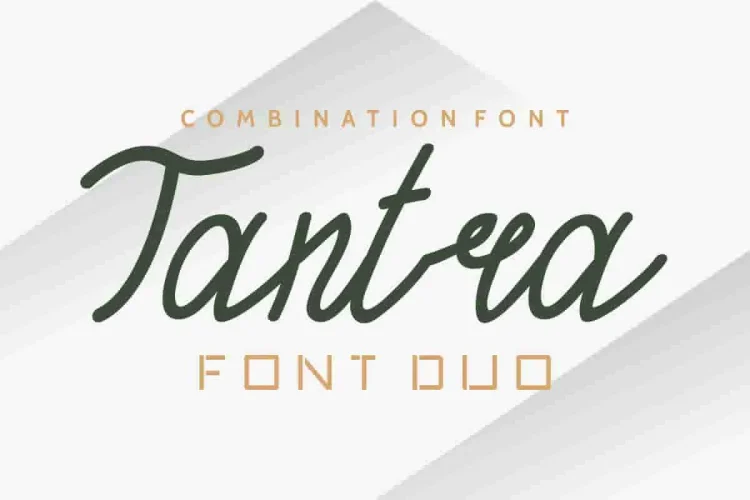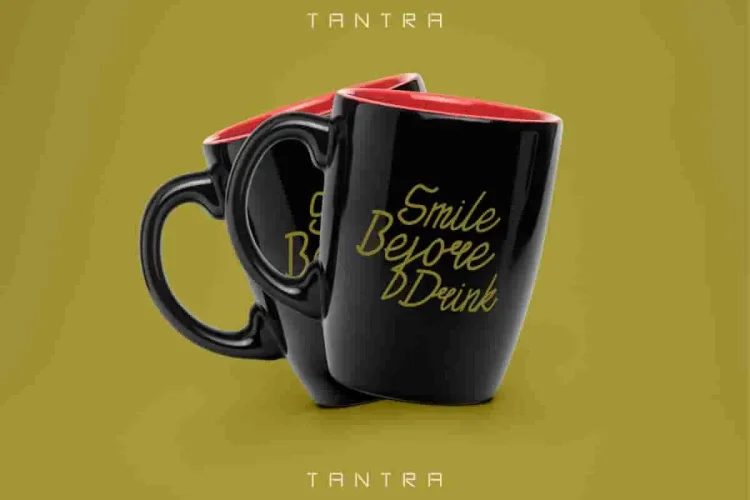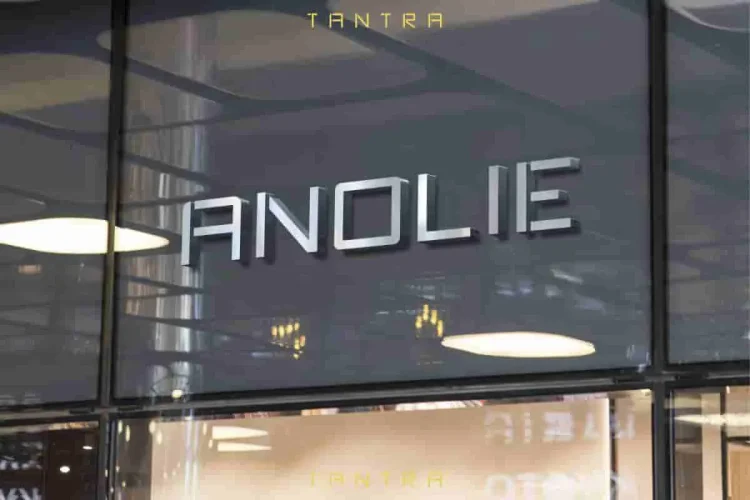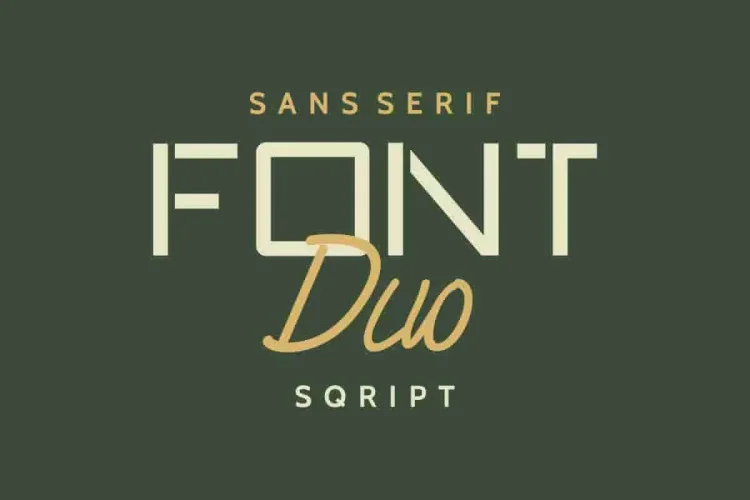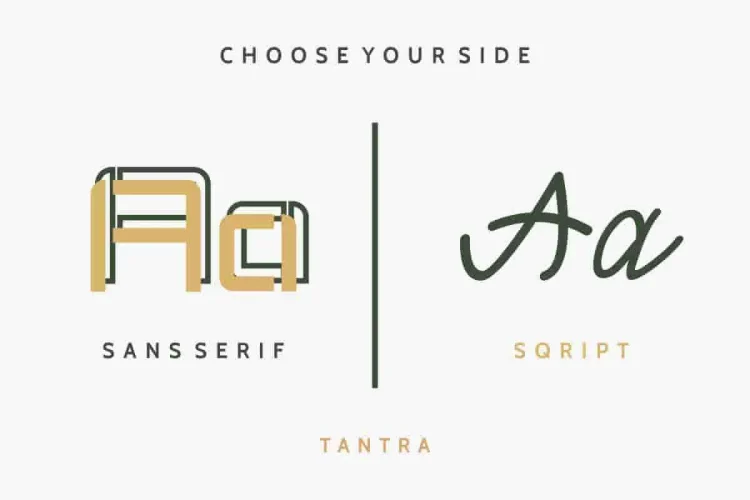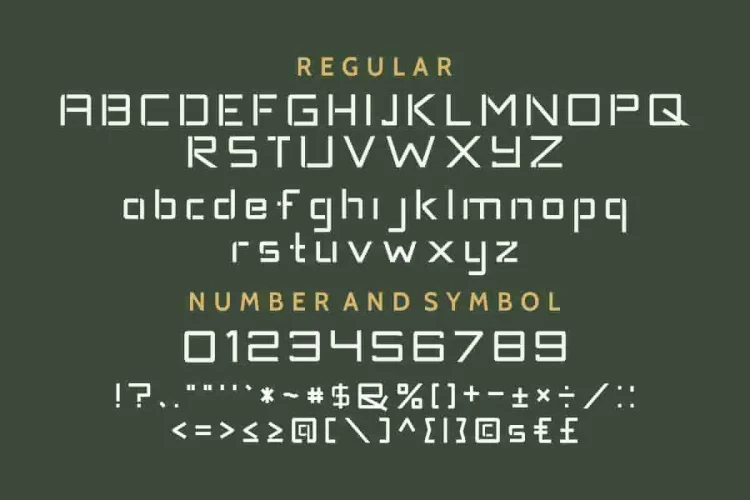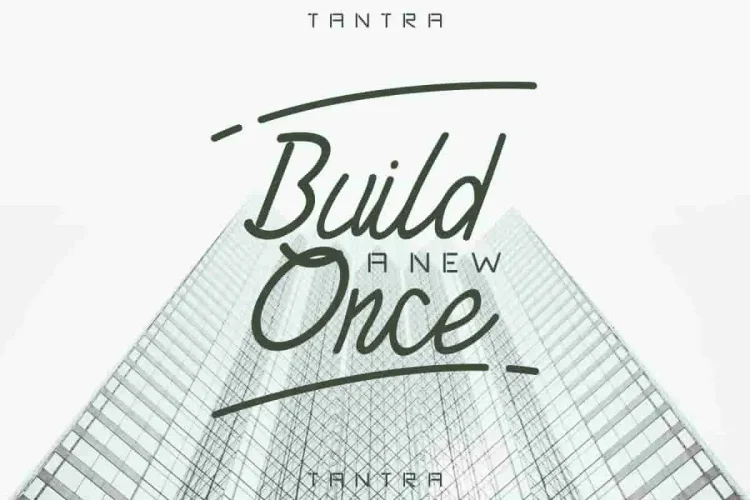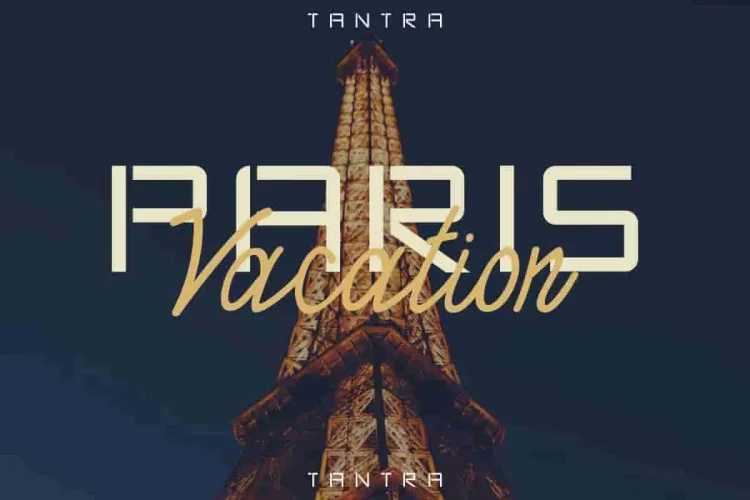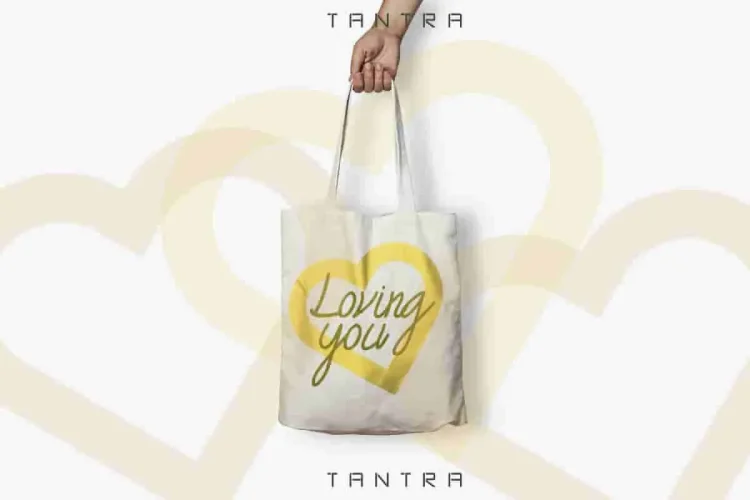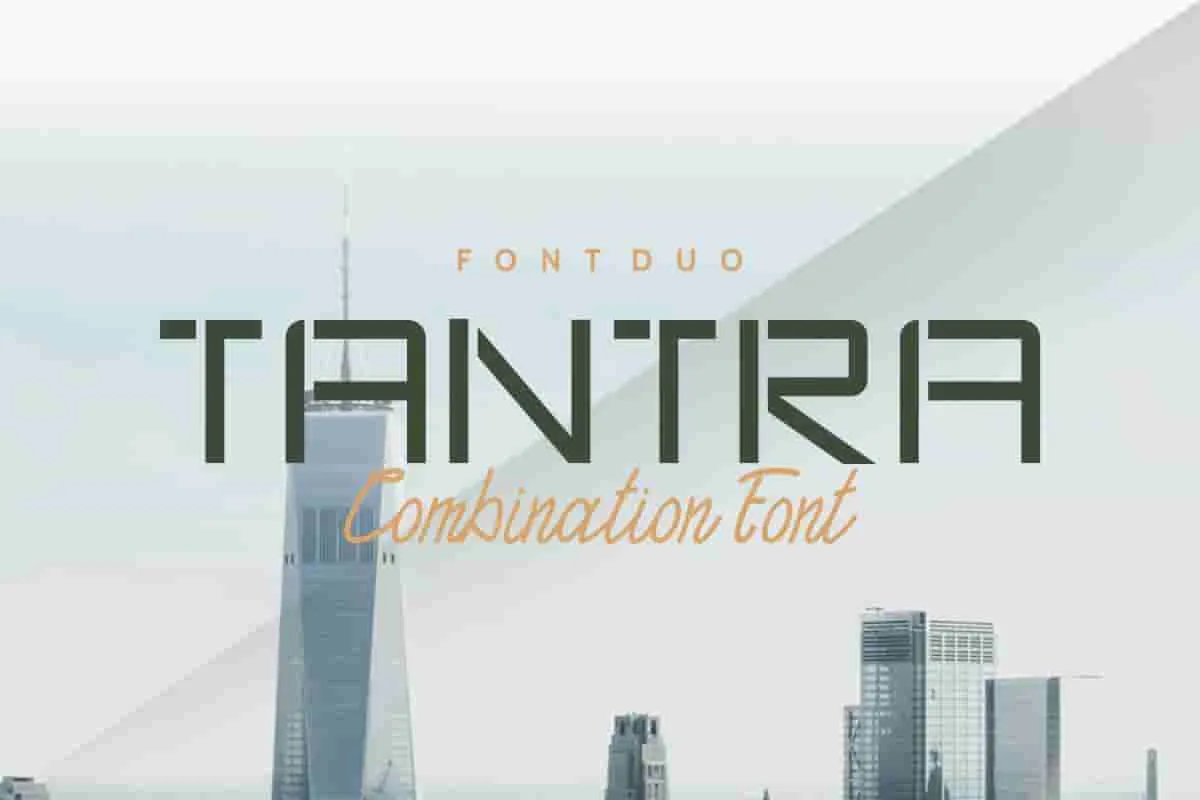
TANTRA Sans Script Font Trio
Hi Everyone! Introducing our newest font : TANTRA ! This is a Display sans and script font : Regular, Script and Outline. Perfectly proportioned and clean, it’s ideal for headlines, branding, posters, real estate, and construction projects. This version radiates confidence, modernity, and professionalism.
TANTRA is a sophisticated styling font which will be perfect for branding, logo, photography, signature, stationery, business card, signage, flyer, brochure, invitation, etc. There are many industries that is suitable for this font : wedding, construction, real estate, services, law firm, marketing, artist, hairstylish etc. It is so elegant, classy, strong and beautiful.
1. TANTRA Regular – Bold Display Sans Serif
TANTRA’s Regular style delivers a strong, geometric sans serif that commands attention. Perfectly proportioned and clean, it’s ideal for headlines, branding, posters, real estate, and construction projects. This version radiates confidence, modernity, and professionalism.
• Ideal for: Titles, signage, business presentations, tech, law firms
• Vibe: Modern, minimal, assertive
2. TANTRA Script – Elegant Handwritten Flow
A smooth, flowing script inspired by luxury penmanship. With graceful curves and a personal touch, the Script version softens the sans serif’s boldness with refined charm. It’s perfect for wedding invitations, photography branding, stationery, or artist portfolios.
• Ideal for: Invitations, personal branding, beauty, fashion, artists
• Vibe: Feminine, classy, expressive
3. TANTRA Outline – Stylish and Contemporary
Outline gives your design a futuristic twist. Light yet structured, it adds dimension without overpowering your message. Use it as a headline accent or pair it with the other styles for layered design depth.
• Ideal for: Flyers, branding, logos, marketing agencies
• Vibe: Sleek, minimal, eye-catching
• ✅ Three Powerful Styles – Mix and match sans + script + outline
• ✒️ Balanced Aesthetic – Bold and elegant in one package